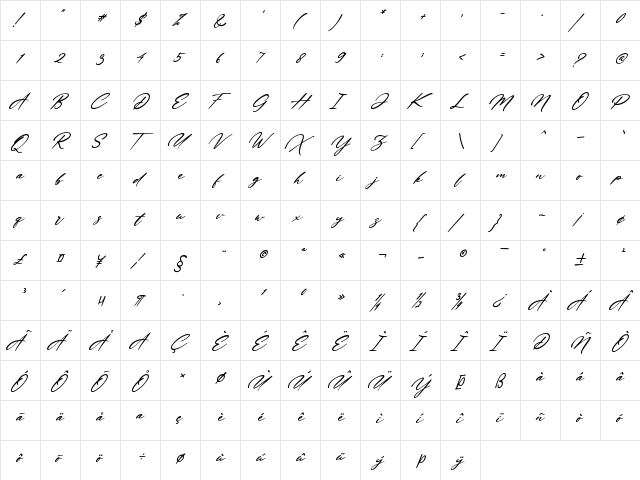
Winne Vinne Italic Regular
Design Context for Winne Vinne Italic Typeface
Winne Vinne Italic is a composed and adaptable typeface that performs quietly and consistently across a wide range of design contexts. The dynamic lean of this cut emphasises speed and emphasis in any layout.
Pro Tip: Use Winne Vinne Italic for emphasis, pull quotes, and subheadings where its slanted energy can add rhythm to the layout.